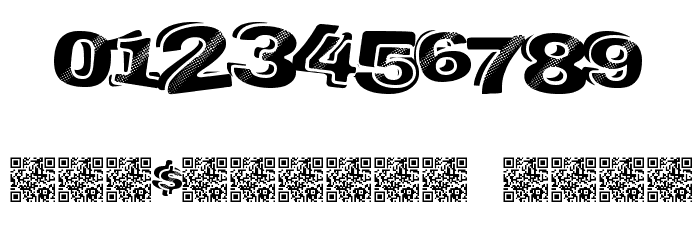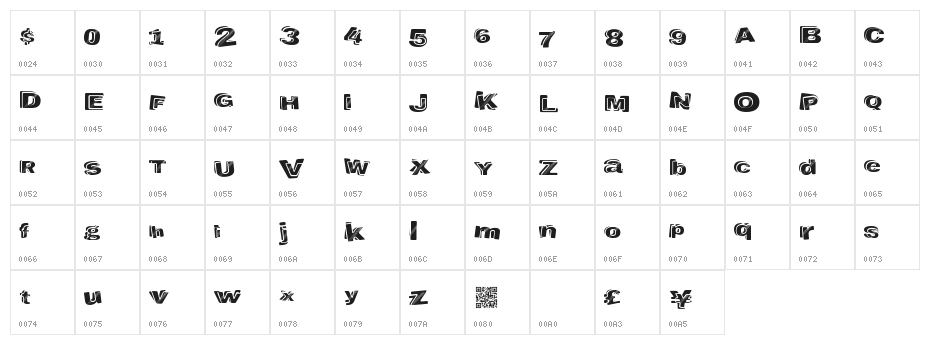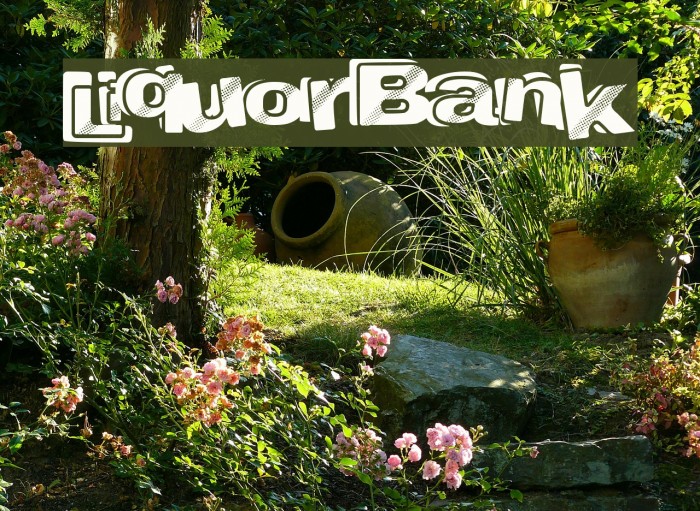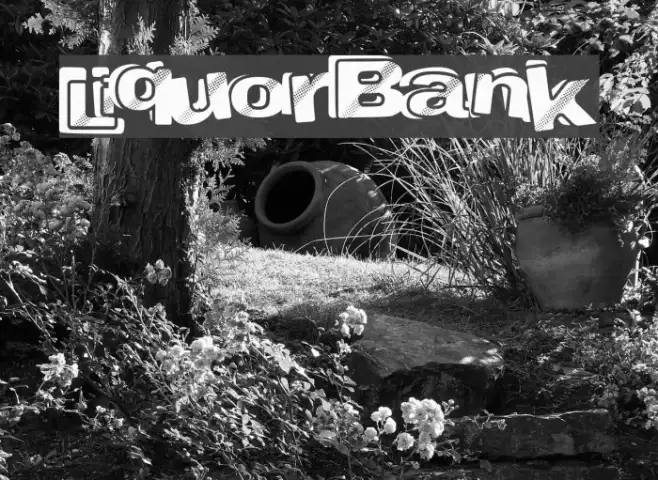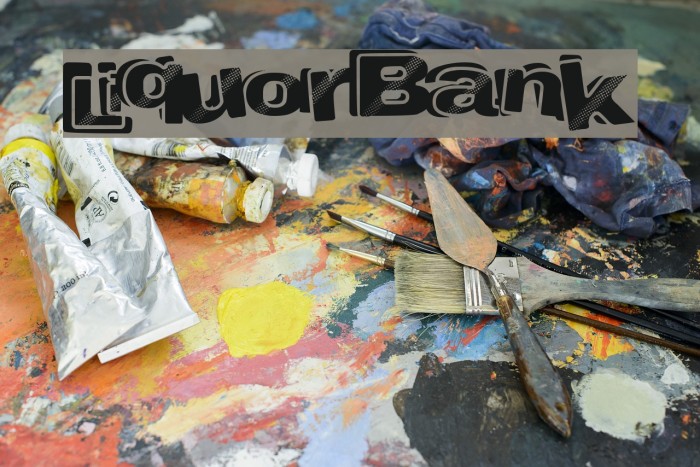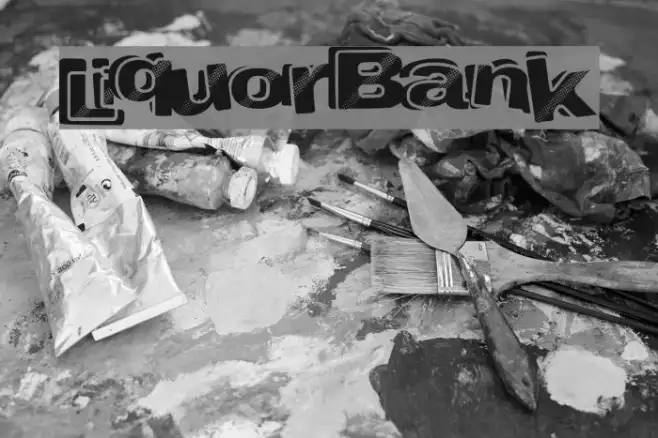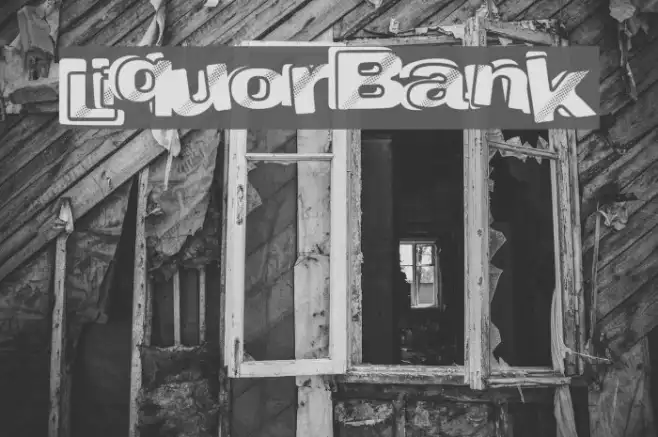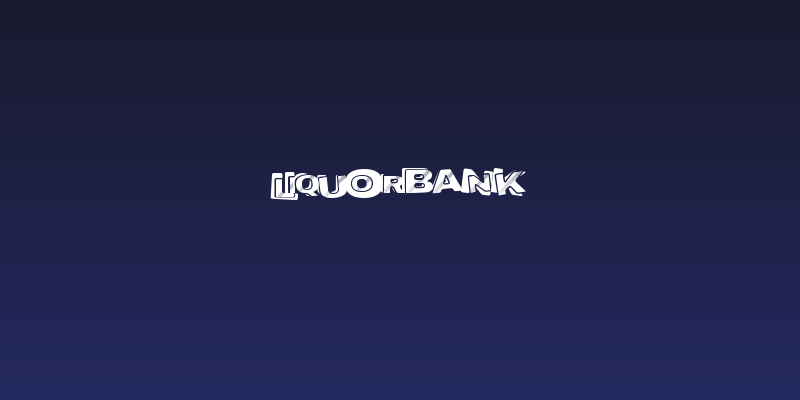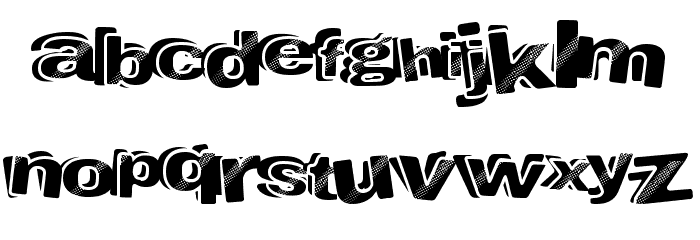
LiquorBank Font
LiquorBank Description
This font features a bold and playful design with a unique 3D effect. Each character is outlined with a thick black shadow, giving it a striking appearance. The letters have a slightly slanted orientation, adding a dynamic and energetic feel. The interior of the characters is filled with a dotted pattern, enhancing the visual interest and making it stand out. This font is ideal for projects that require a fun and eye-catching style, such as posters, advertisements, or event flyers.
| Proposed Projects | Ideal for posters, advertisements, event flyers, and any design needing a fun, eye-catching style. |